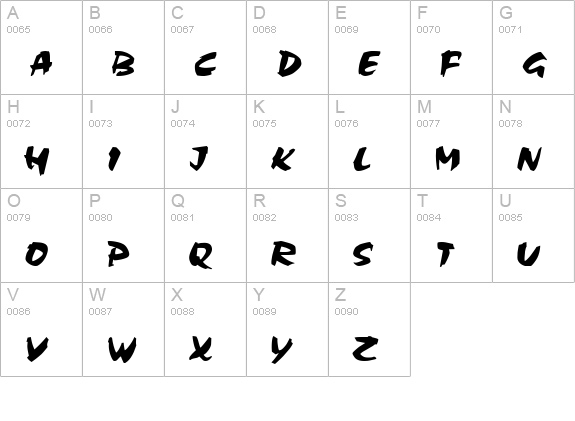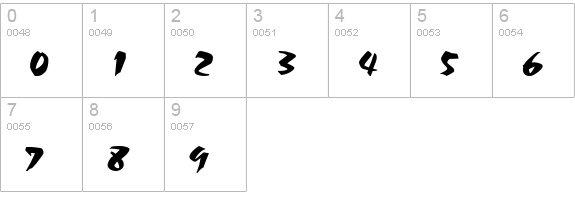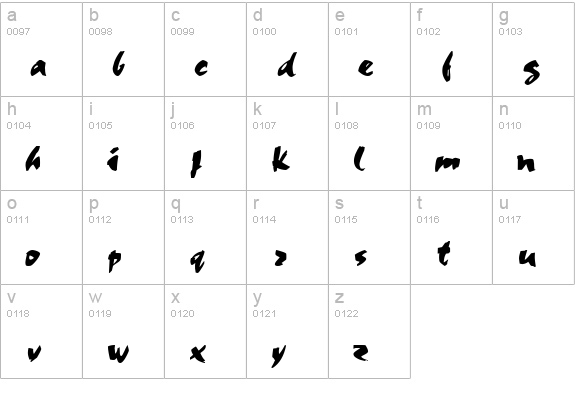
Cocoa Wide Normal Font Details
Cocoa Wide Normal is the standard, neutral, extended-width variant in the Cocoa typeface family \xE2\x80\x94 well suited to general body text, paragraphs, and standard typographic work.